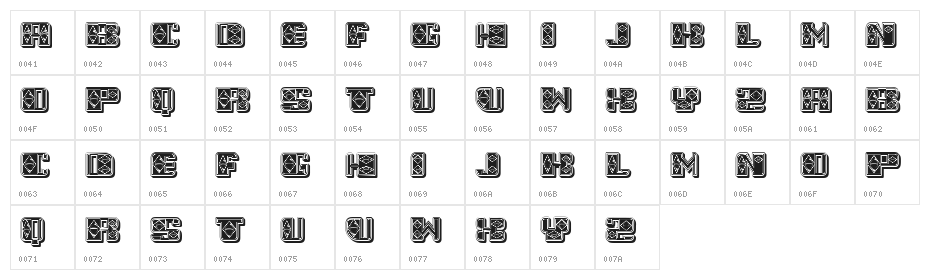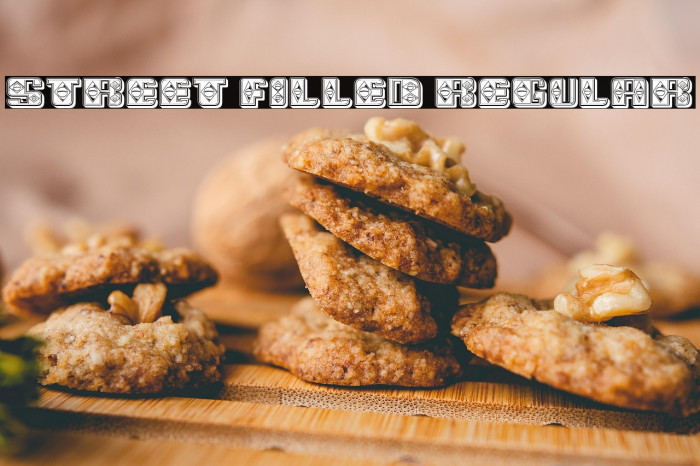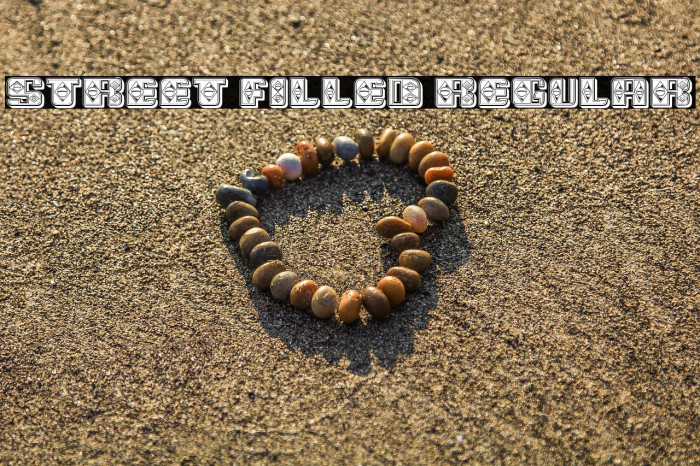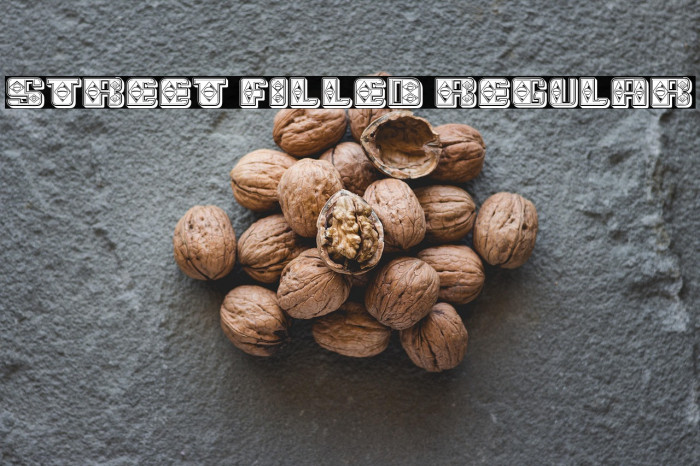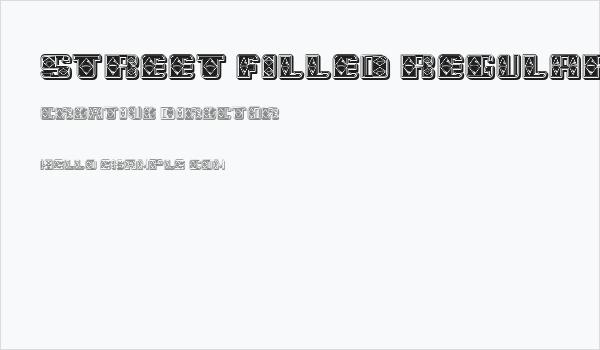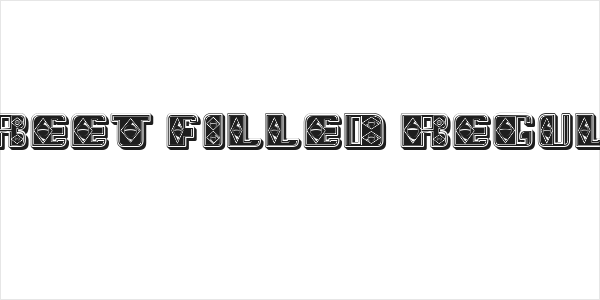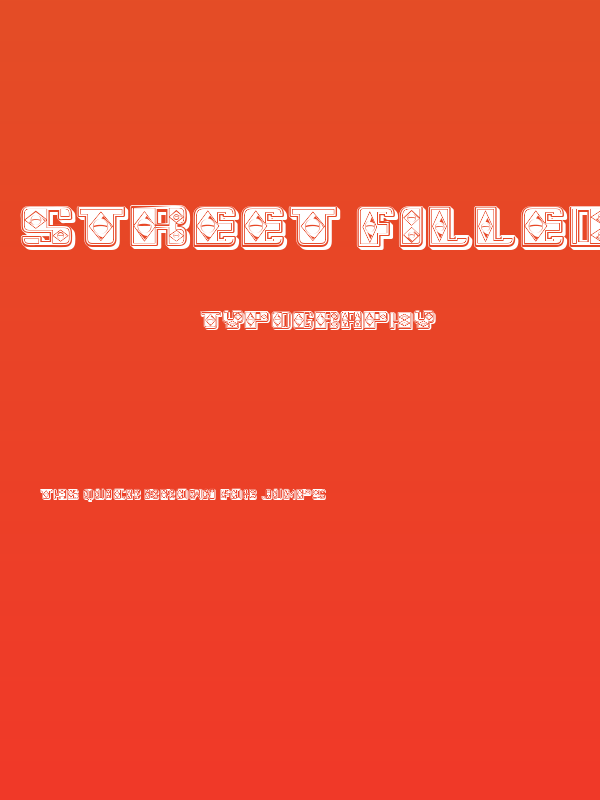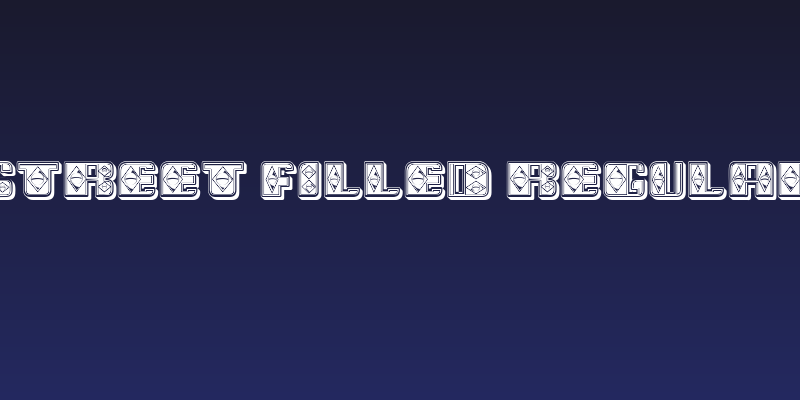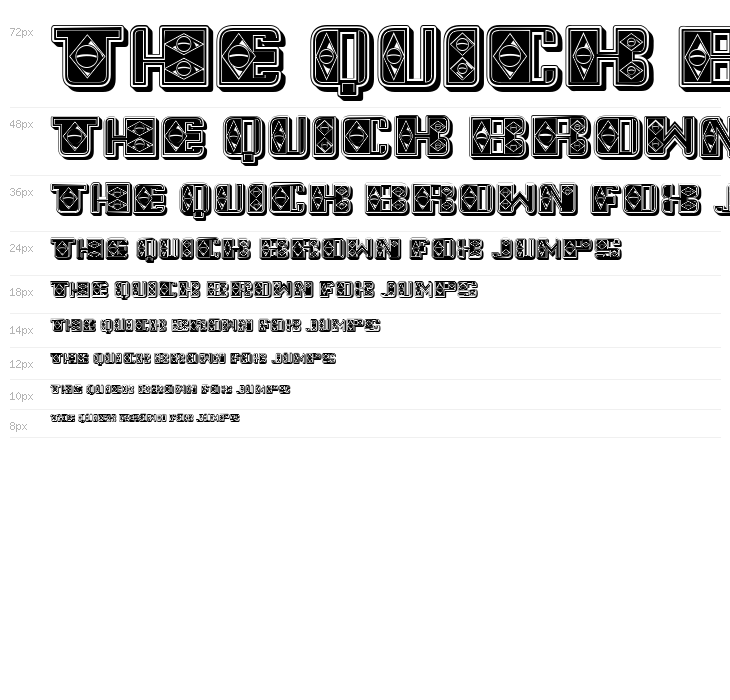
Street Filled Regular Font
Street Filled Regular Description
This font features a bold, decorative style with intricate patterns filling each character. The letters are outlined with a thick border, giving them a strong presence. The interior designs are geometric, adding a unique and artistic flair. Each character maintains a consistent height and width, creating a uniform appearance. The font is highly stylized, making it suitable for eye-catching designs. It combines elements of modern and vintage aesthetics, making it versatile for various creative projects.